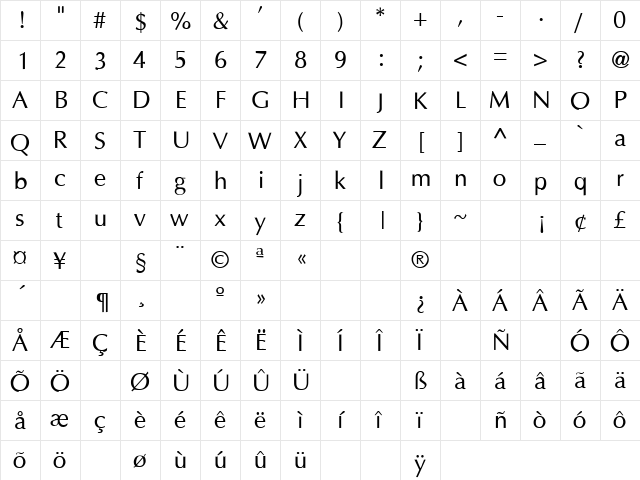
Friends 24 Regular
Design Context for Friends 24 Typeface
Friends 24 offers clean, dependable letterforms without strong stylistic allegiance, making it a practical choice for designers who need flexibility.